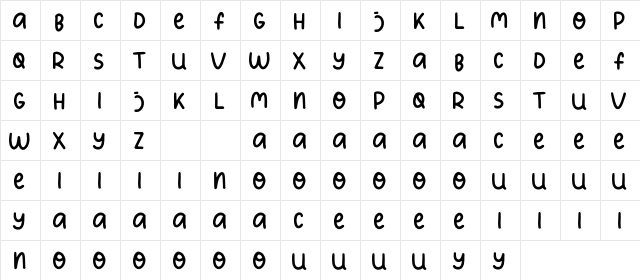
Kids Planet Regular Font Preview
Kids Planet Regular
Kids Planet Regular Font Details
Design Context for Kids Planet Typeface
Kids Planet has an approachable, lighthearted character — its loose, expressive forms are well-suited to children's content, casual branding, and fun-first design.
Font Pairing: Pairs well with a rounded or humanist sans for body copy, maintaining the friendly tone without relying on Kids Planet to carry extended reading.
Pro Tip: Use Kids Planet at larger display sizes where its expressive character can land. Pair with a clean, simple sans for body copy to maintain readability.